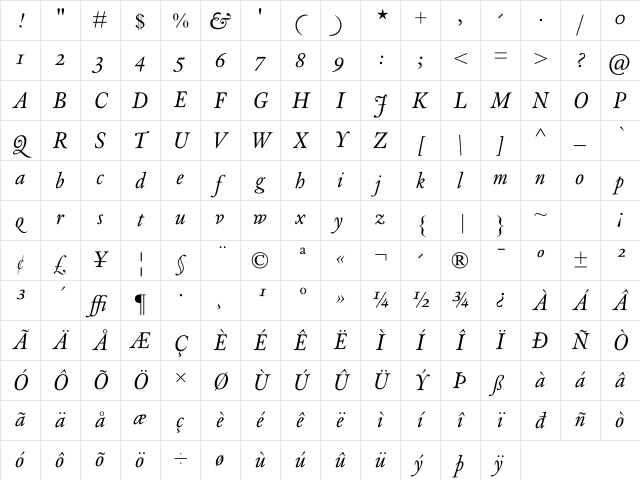
Custodia6 NormalItalic
Style: NormalItalic
Design Context for Custodia6
Custodia6 is a composed and adaptable typeface that performs quietly and consistently across a wide range of design contexts. The slanted form adds forward momentum and visual energy.
Pro Tip: Use Custodia6 for emphasis, pull quotes, and subheadings where its slanted energy can add rhythm to the layout.